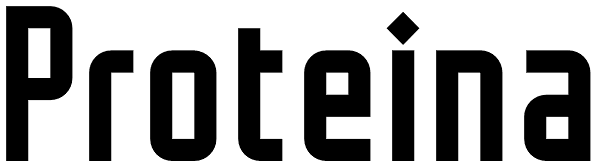
Proteina
Proteina is a simple retro font, clean and contemporary modular sans for titling. It is perfect for headlines, apparel, fashion, album artwork, posters, logos and minimal type layouts.